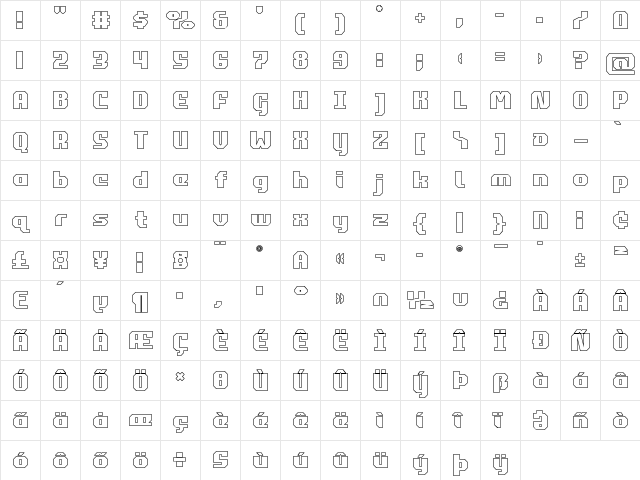
Commonwealth Outline Outline
Design Context for Commonwealth Outline Typeface
Commonwealth Outline is built around its visual character rather than neutral utility — its distinctive forms are designed to make an impression at display sizes.
Font Pairing: Pair with a clean neutral sans-serif for body copy to let Commonwealth Outline's character lead without overwhelming the composition.
Pro Tip: Treat Commonwealth Outline as the centrepiece of your typographic hierarchy. One strong heading set in a decorative face can carry an entire layout.